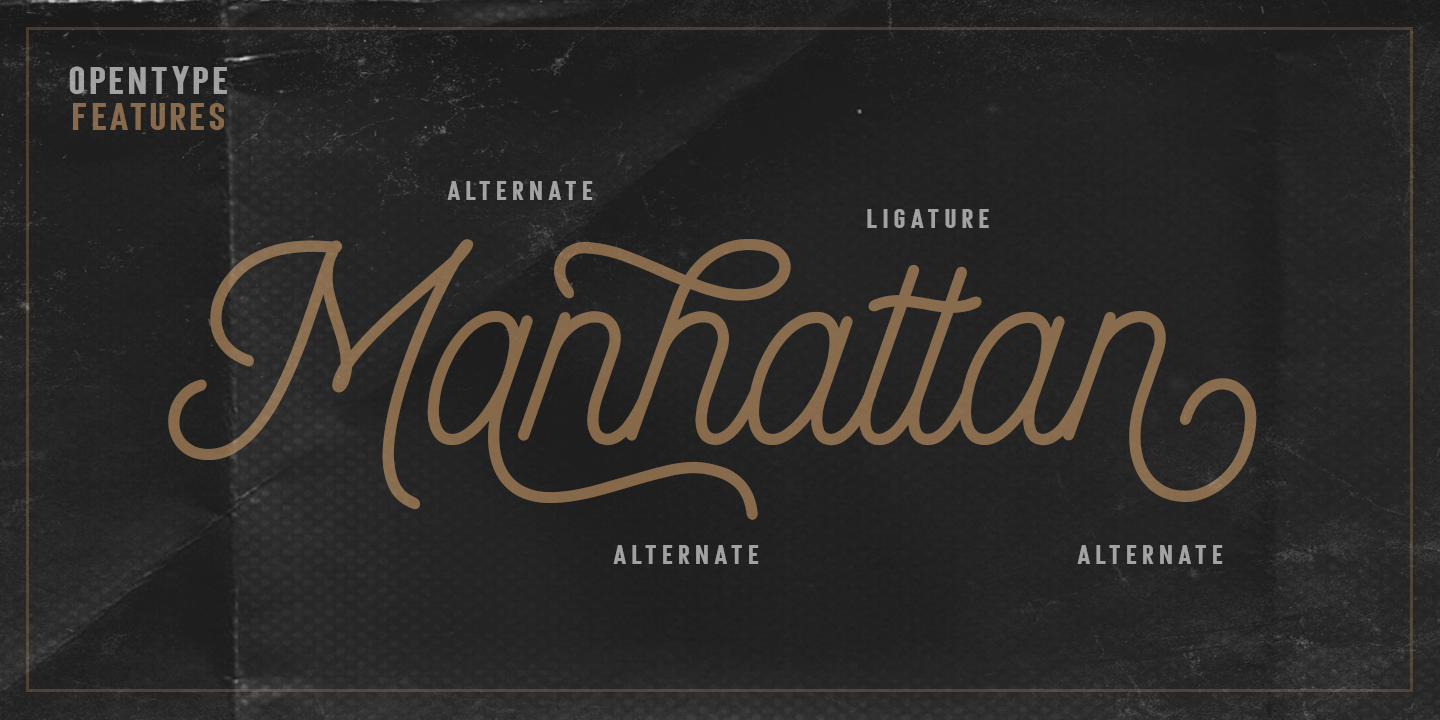
Monotage Free Download
Monotage Font Free Download
Need a sleek, modern typeface that blends minimalism with creative flair? Monotage Font Free Download is an excellent choice for branding, editorial layouts, digital ads, portfolios, and UI/UX projects. Its clean lines and balanced geometry give your text a bold yet refined appearance, making it stand out in both print and digital media.
From startup identities to minimalist posters, Monotage Font Free Download brings a future-forward vibe to any project.